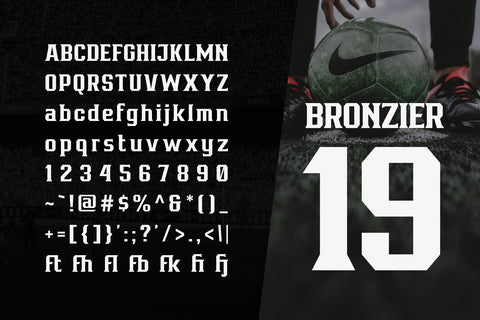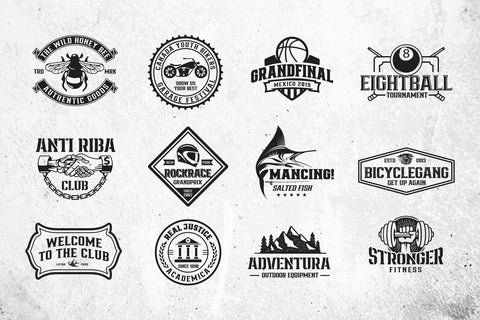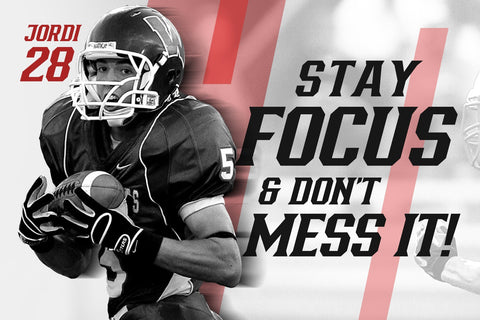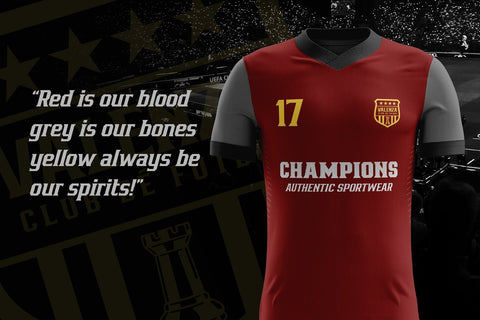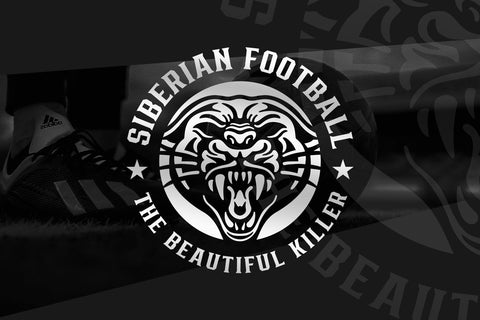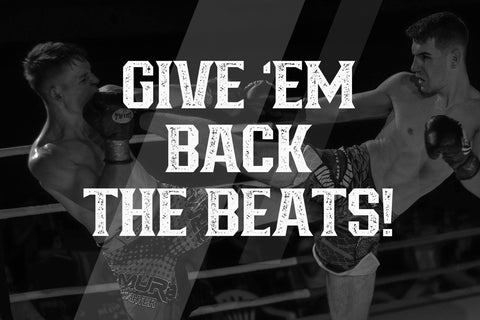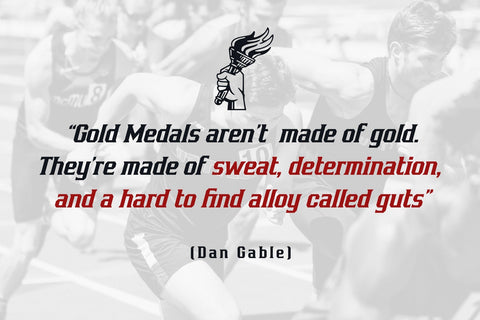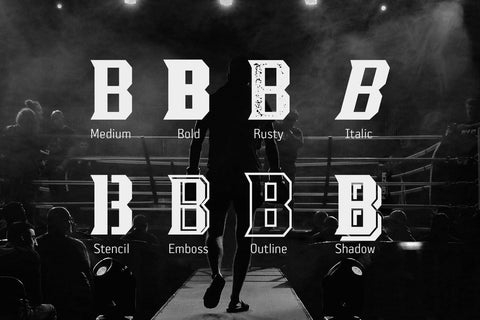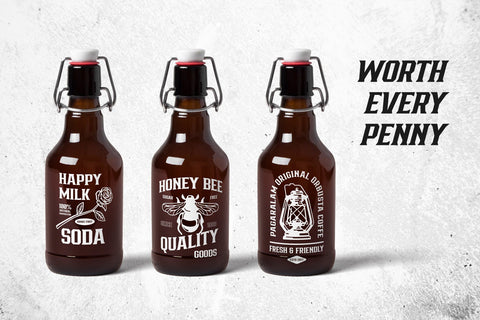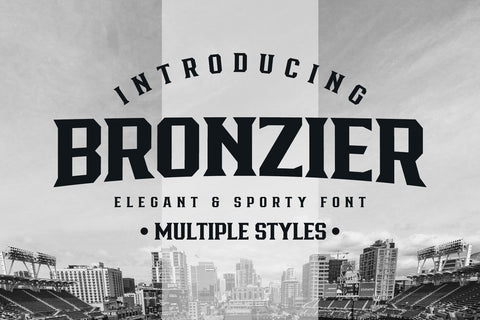
Bronzier Font Family
Bronzier is a strong serif font with 8 different styles. Bronzier designed with a strong and sharp serif that gives more manly looks. Sporty, vintage and modern taste at the same time that's mean you can use this font family for many design styles. Inspired by old-school typography, and modern style.
Create a perfect design with Bronzier! Because Bronzier is suitable for logo, logotype, apparel, jersey, tags, label, poster, sticker, branding and more. Available in TTF & OTF format.